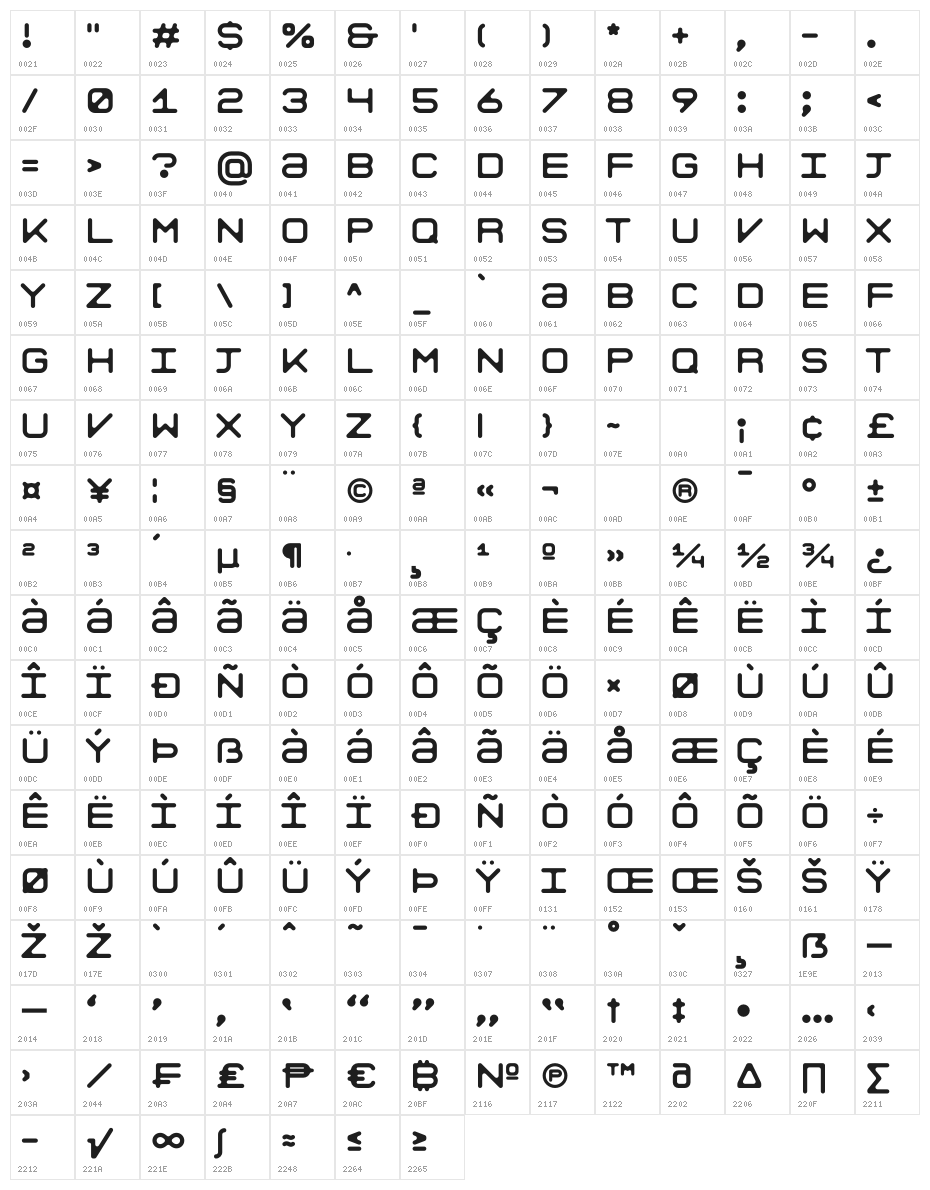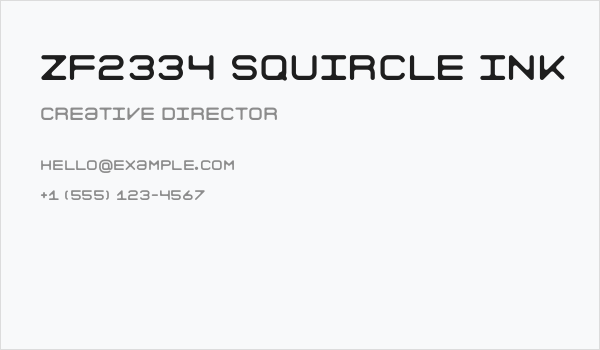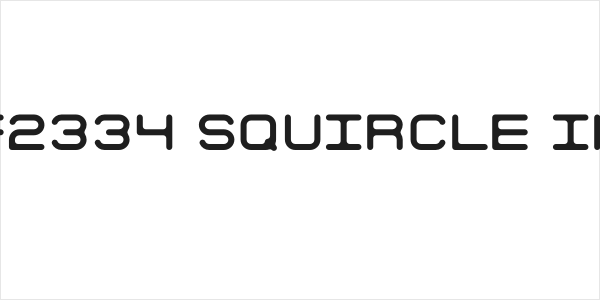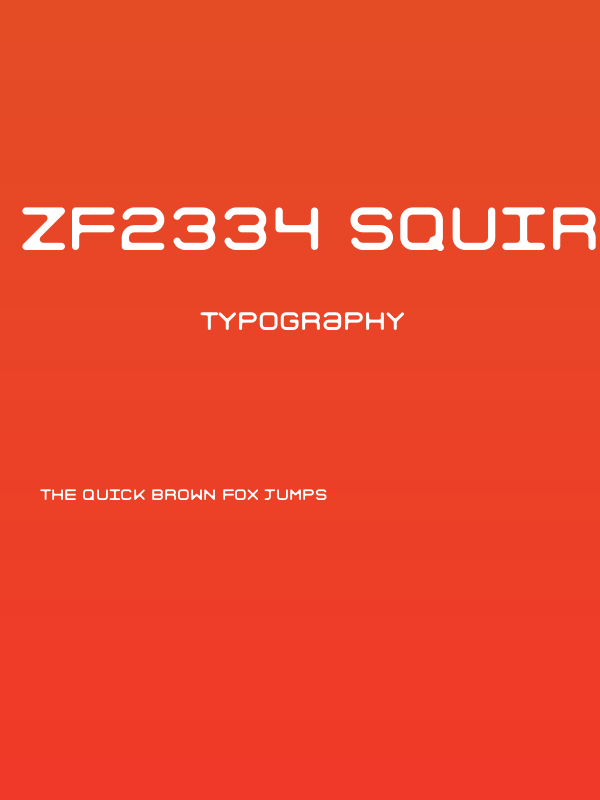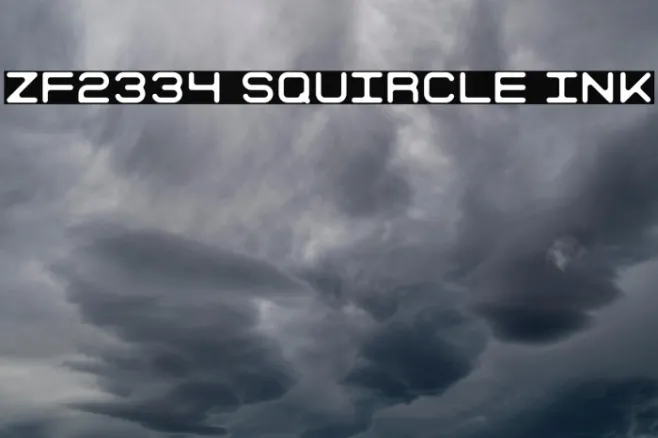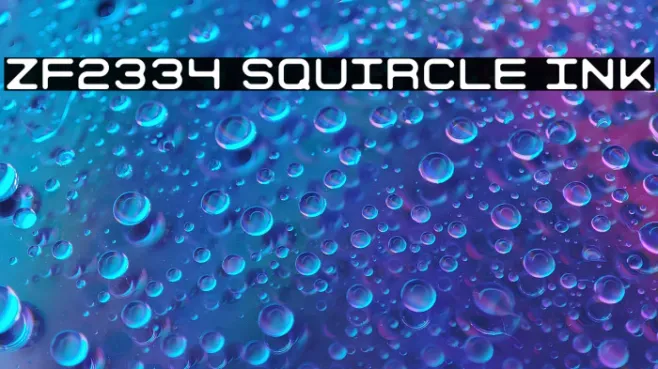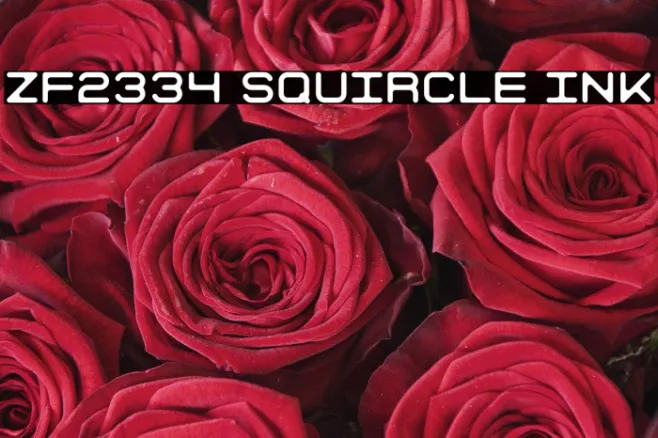
ZF2334 Squircle Ink Font
ZF2334 Squircle Ink Description
This font features a unique blend of geometric precision and organic curves, creating a visually striking appearance. The characters are designed with a squircle influence, combining the softness of a circle with the structure of a square. This results in a harmonious balance that is both modern and approachable. The font maintains a consistent stroke width, providing a clean and uniform look across all characters. Its legibility is enhanced by the generous spacing between letters, making it suitable for both digital and print media. The font's style is versatile, lending itself well to a variety of applications from branding to editorial design.
| Proposed Projects | Ideal for branding, editorial design, digital interfaces, and print media. |